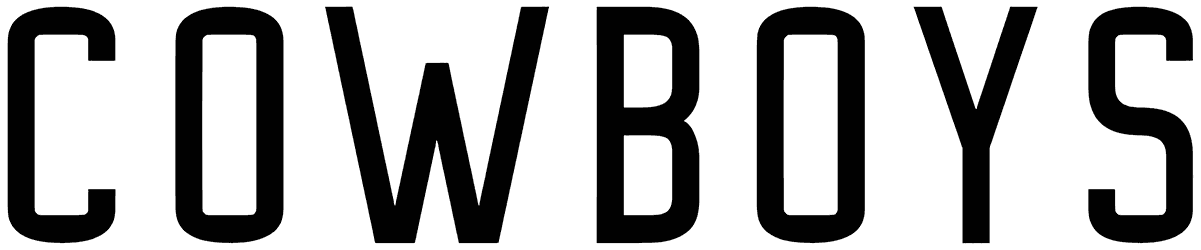
Ohio Font
Get this sans serif font and knock over your clients with a feather! Ohio comes in narrow and tall characters and will add an artistic touch to your text layout. This case works perfectly for websites, t-shirts, posters, and whatnot. Just keep in mind, that this one doesn’t contain lowercase letters.
Introducing Ohio Font is a Futuristic Sans font with a stylish touch inspired by the famous minimalist logo and Ohio is perfect for the purposes of designing templates, brochures, videos, advertising branding, logos and more.